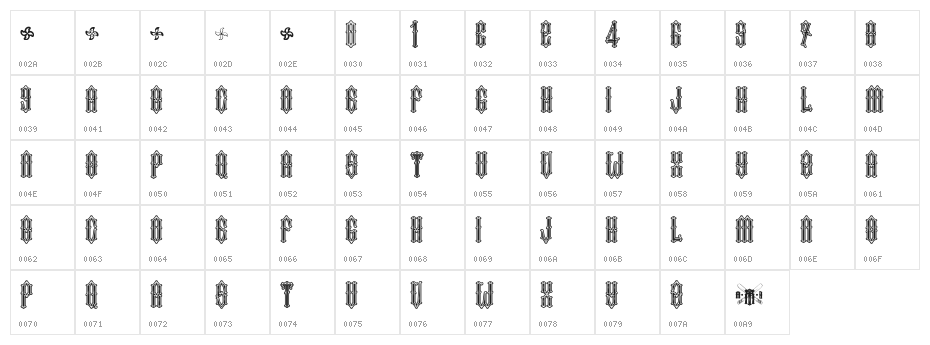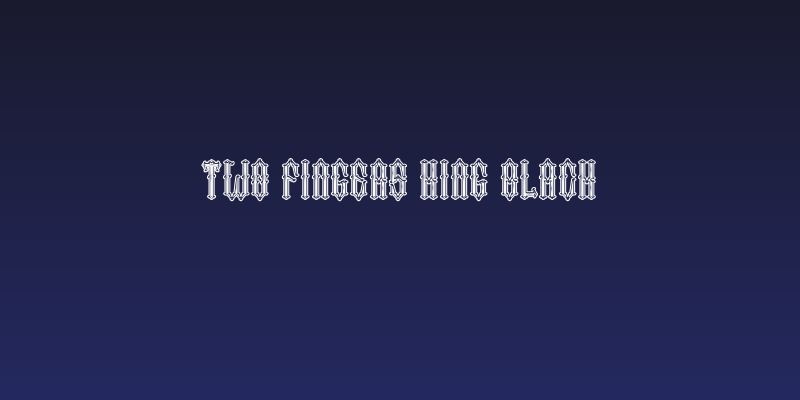
Two Fingers King Black Font
Two Fingers King Black Description
This font exhibits a bold and intricate design, reminiscent of traditional blackletter styles. Each character is adorned with elaborate flourishes and sharp angles, creating a sense of grandeur and historical depth. The strokes are thick and pronounced, with a high contrast between the bold lines and the negative space. This gives the font a dramatic and eye-catching appearance, suitable for making a strong visual impact. The decorative elements add a layer of complexity, making it ideal for projects that require a touch of elegance and sophistication.
| Proposed Projects | Ideal for use in branding, posters, album covers, and any project requiring a historical or gothic aesthetic. |